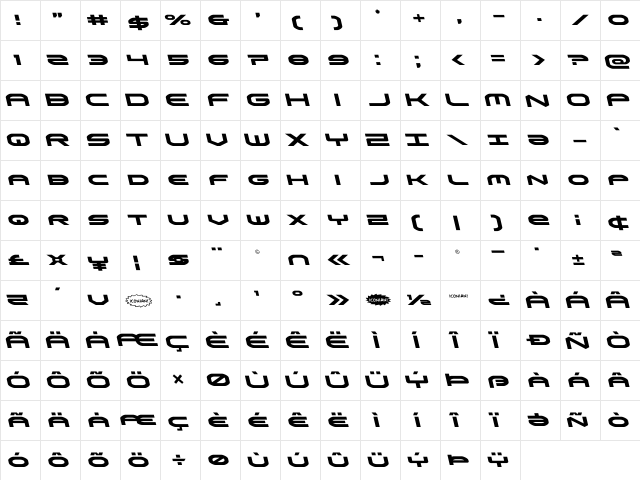
Omni Boy Leftalic Italic
Design Context for Omni Boy Leftalic Typeface
Omni Boy Leftalic takes a measured approach to typography — its balanced proportions and neutral character make it a reliable workhorse for both digital and print work. The dynamic lean of this cut emphasises speed and emphasis in any layout.
Pro Tip: Try Omni Boy Leftalic for annotation and caption copy alongside an upright companion — the contrast in angle creates a dynamic but ordered typographic system.